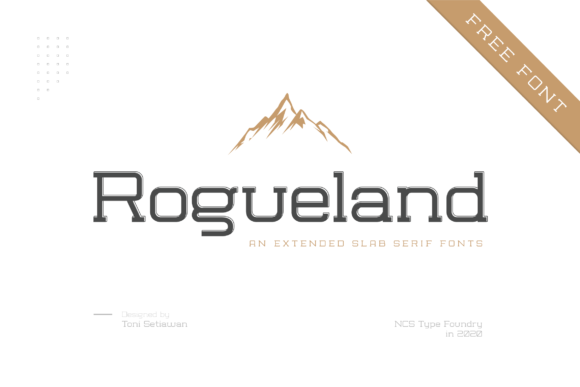
About Rogueland Font
Rogueland is a neat and techno looking slab serif font. It looks great on logos, branding and labels. Add it confidently to your projects, and you won’t be disappointed.